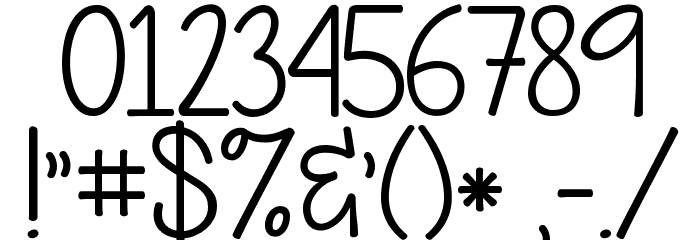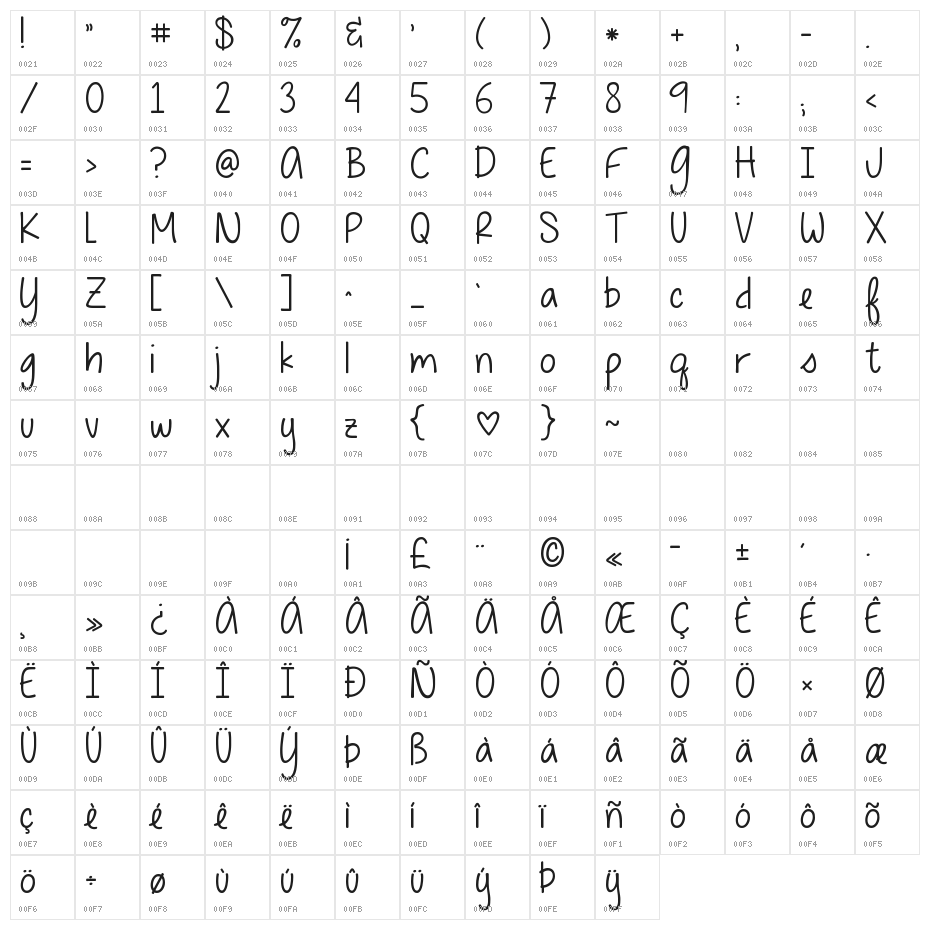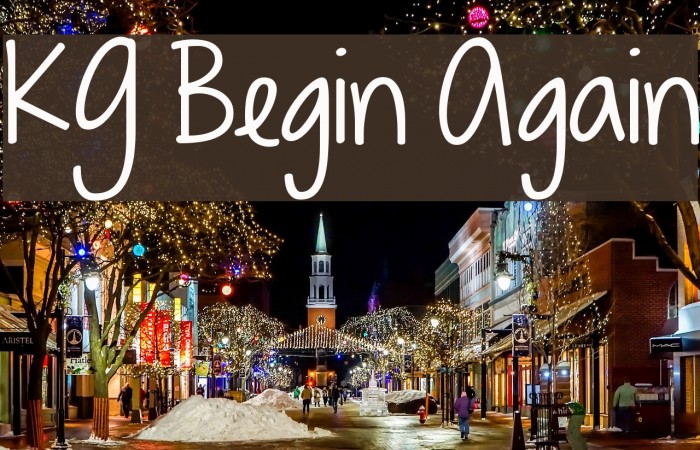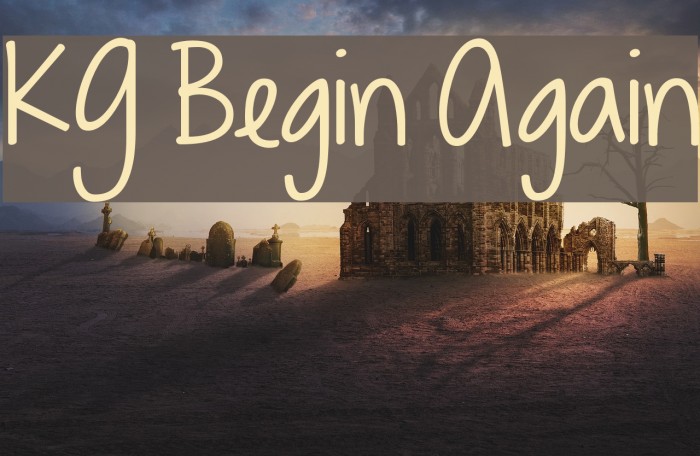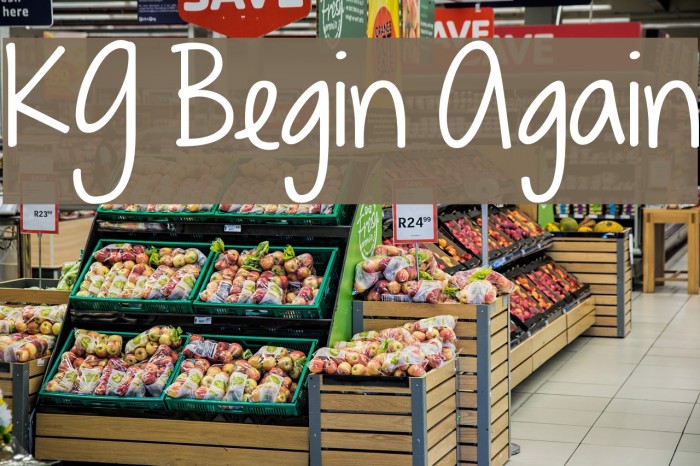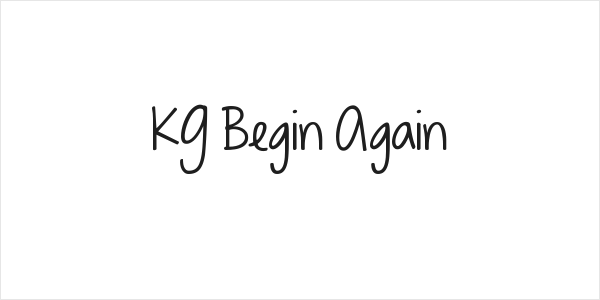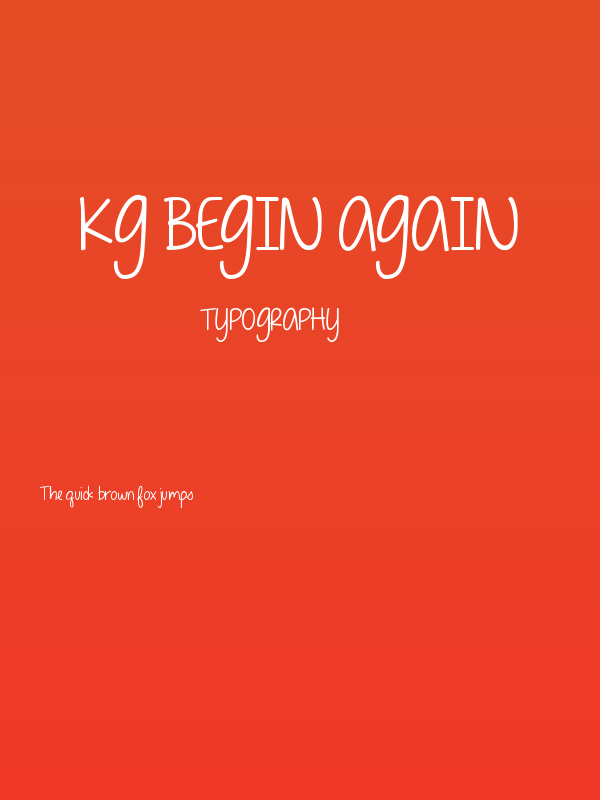
KG Begin Again Font
KG Begin Again Description
This playful and casual font features a handwritten style with smooth, rounded edges, giving it a friendly and approachable appearance. The letters are slightly irregular, adding to the charm and authenticity of the handwritten look. The uppercase and lowercase letters maintain a consistent style, with a slight slant that adds a touch of dynamism. The numbers and special characters are well-integrated, ensuring versatility across different uses. The overall design is clean and legible, making it suitable for a variety of creative projects.
Overall StyleCasual
Use CaseHeadlines, Informal text, Creative projects
Proposed ProjectsIdeal for greeting cards, children's books, casual branding, and social media graphics.